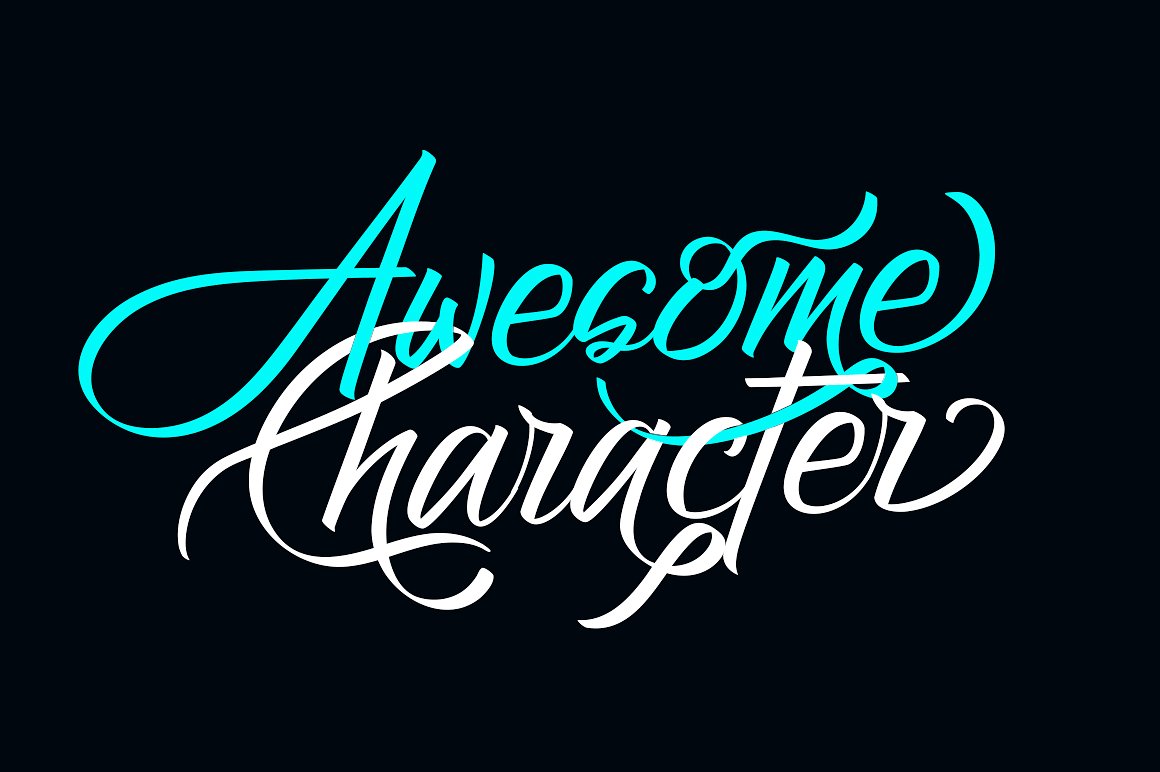
Atziluth
Atziluth Script Font
Atziluth is a gorgeous script font based on calligraphic style. This is an accessible and flexible display font, with tons of alternates and ligatures for branding or logotype purposes. It is perfect used for various purposes such as branding, quote, book / cover title, poster, apparel design, product packaging, label, special events or anything that need grace taste.